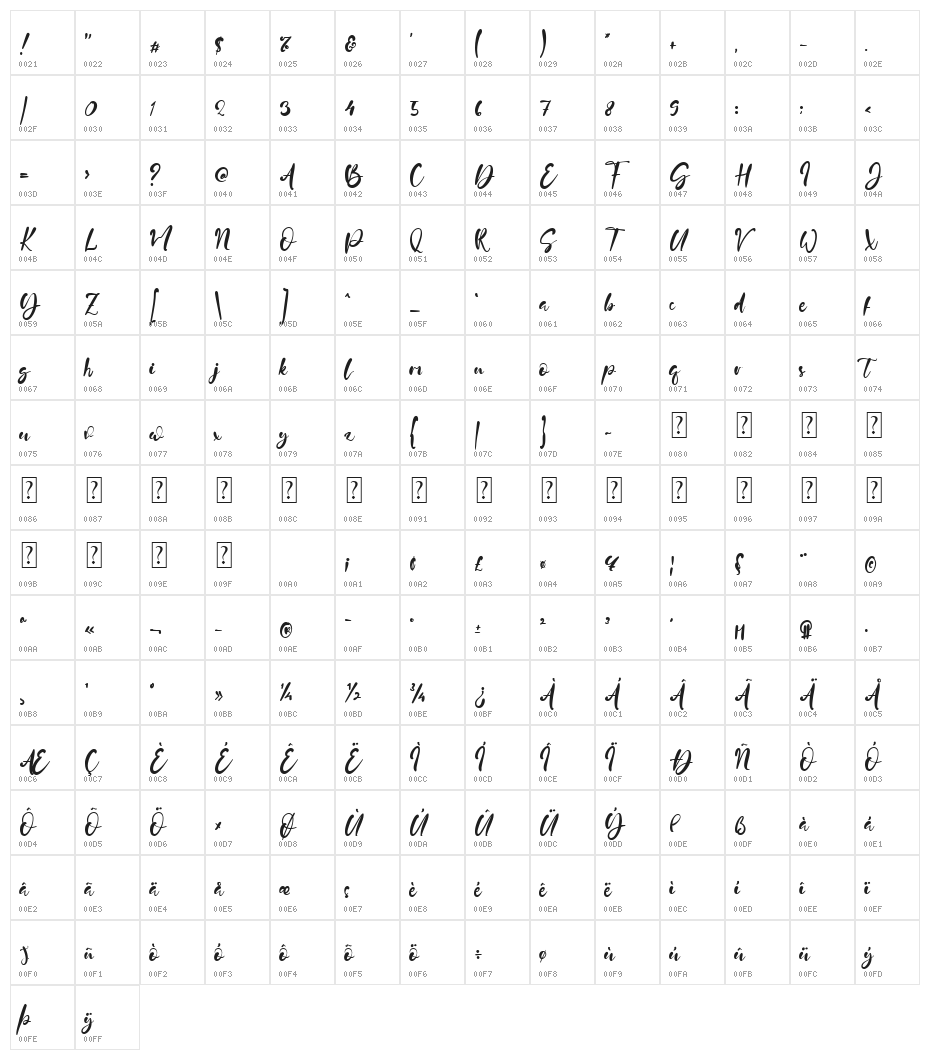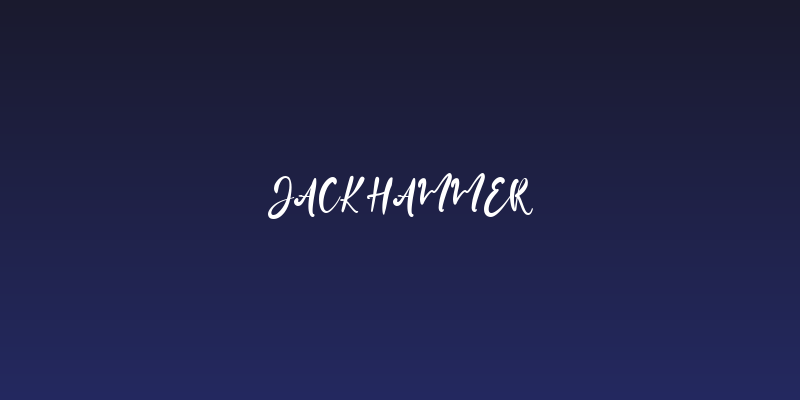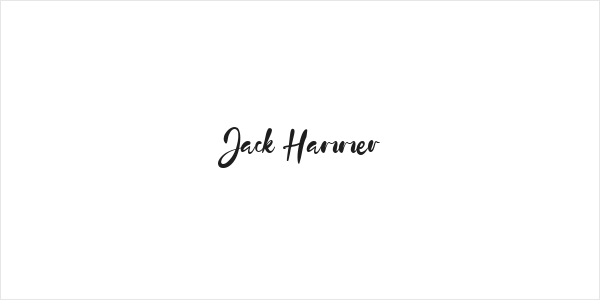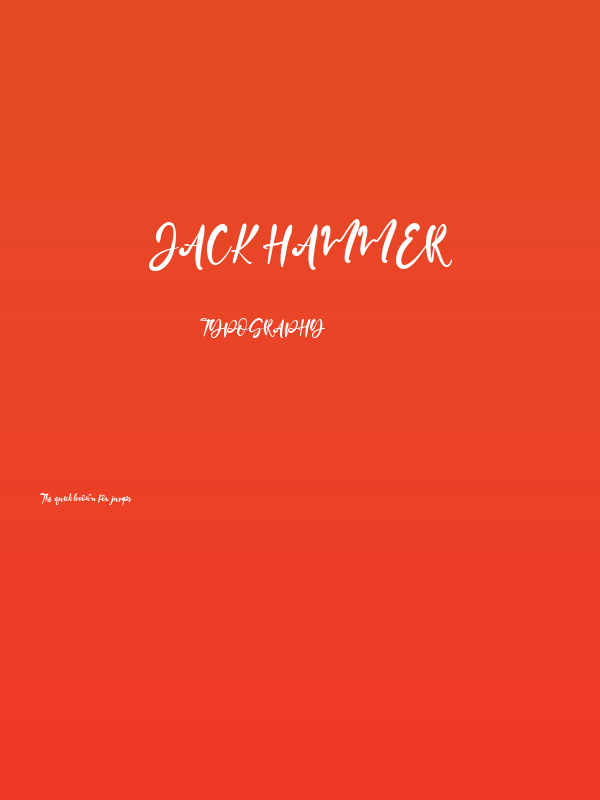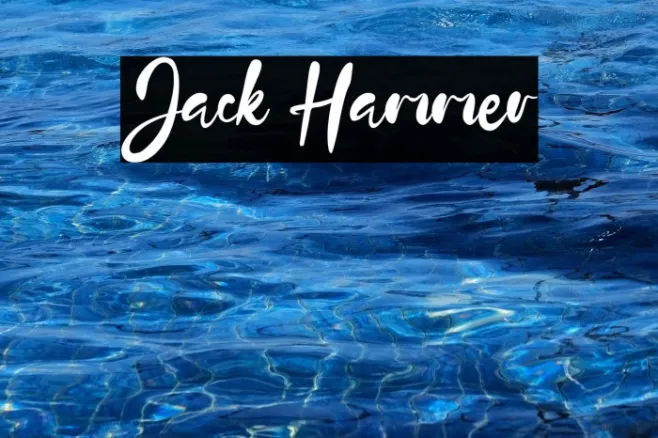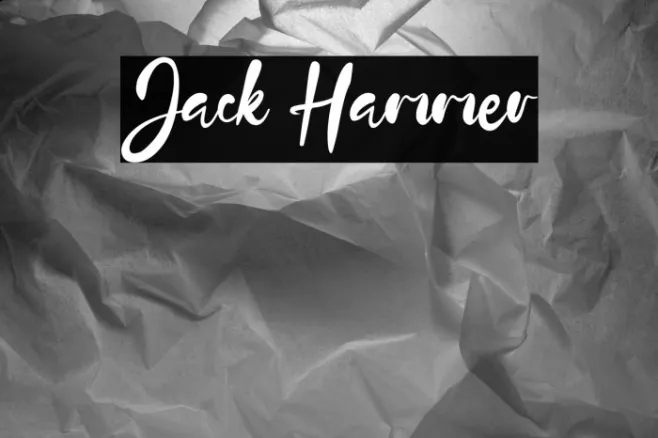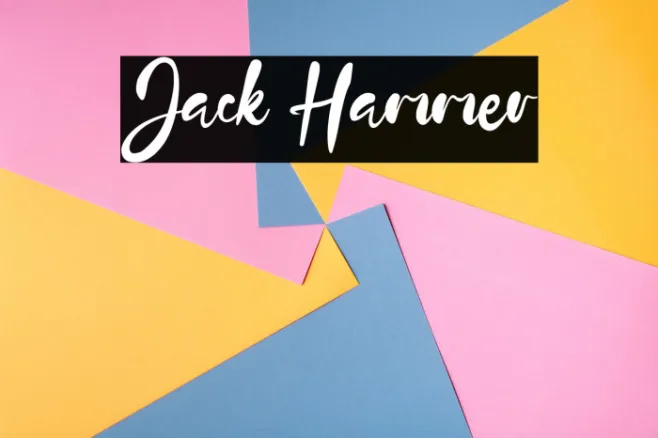
Jack Hammer Font
Jack Hammer Description
This font features a dynamic and expressive script style, characterized by its fluid, handwritten appearance. The uppercase letters exhibit a bold and confident flair, with sweeping curves and elegant loops that convey a sense of movement and energy. The lowercase letters maintain a cohesive flow, with some letters extending below the baseline, adding to the font's lively personality. Numbers are consistent with the overall style, offering a playful yet sophisticated look. Special characters are creatively integrated, maintaining the font's artistic essence. This font is ideal for projects that require a personal touch or a creative flair.
| Proposed Projects | Ideal for wedding invitations, greeting cards, branding, and social media graphics. |